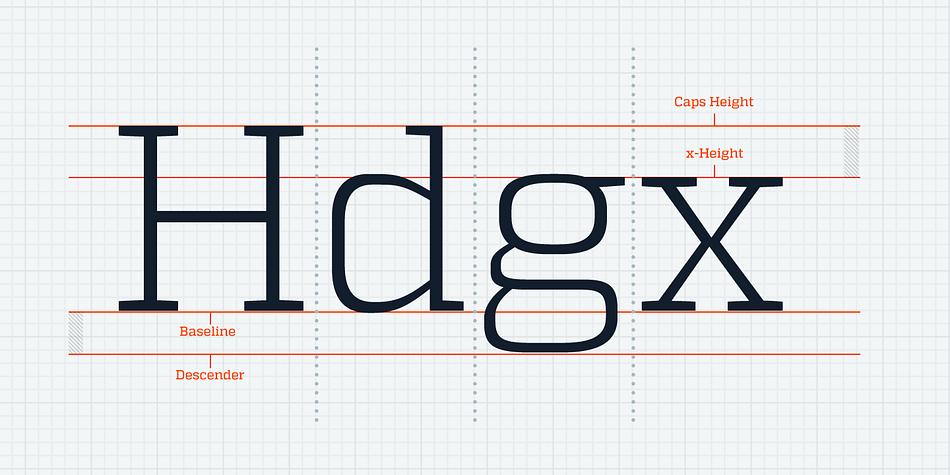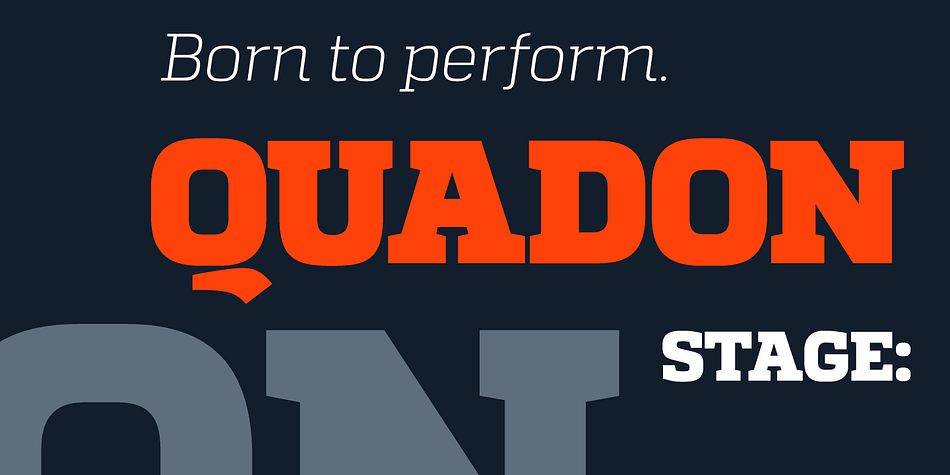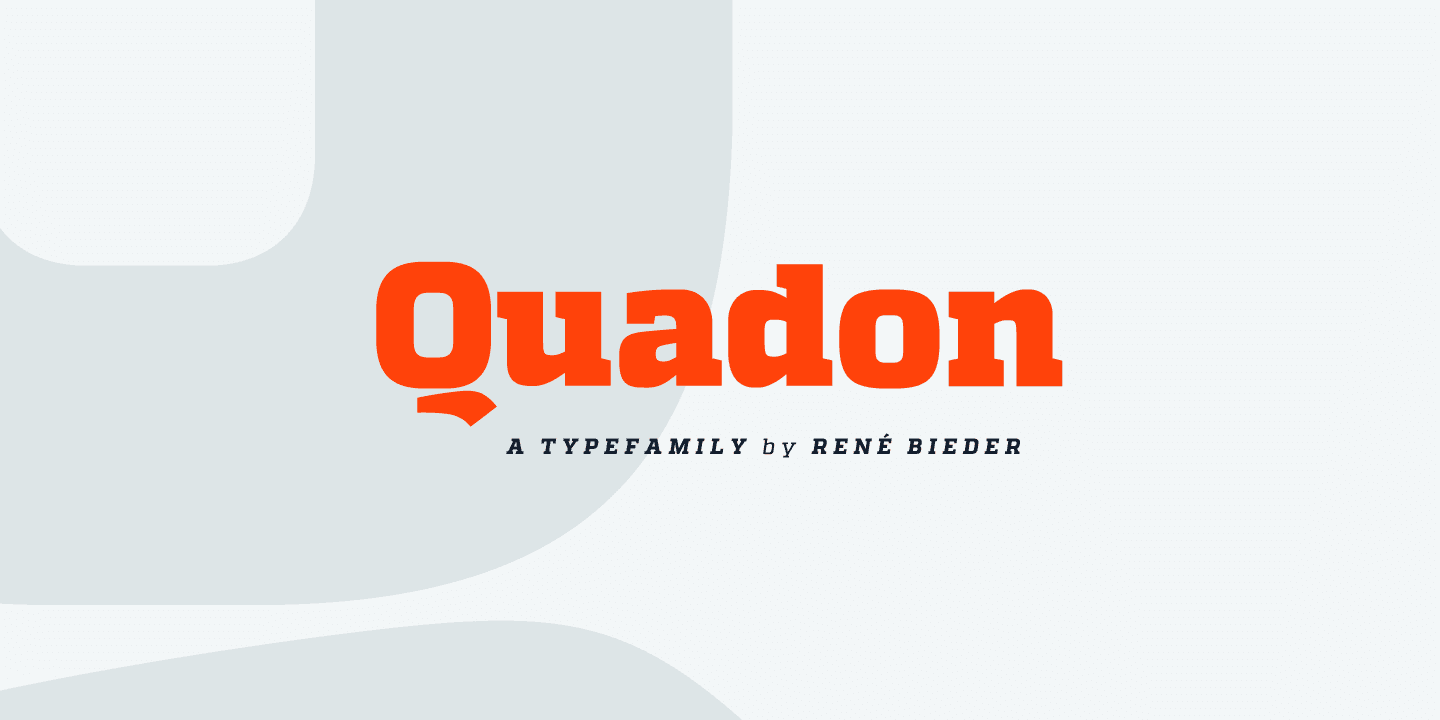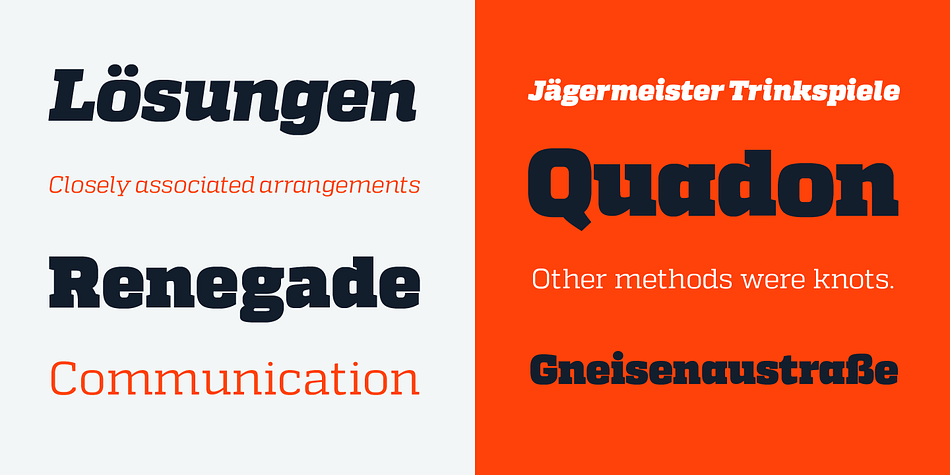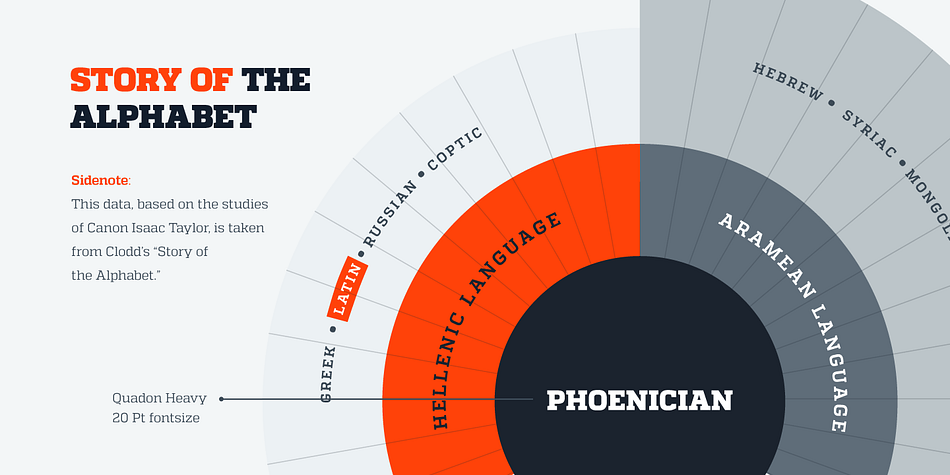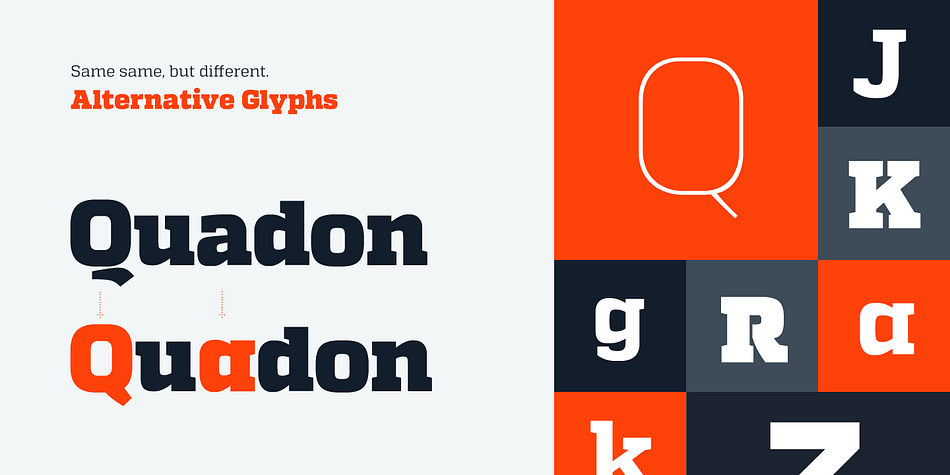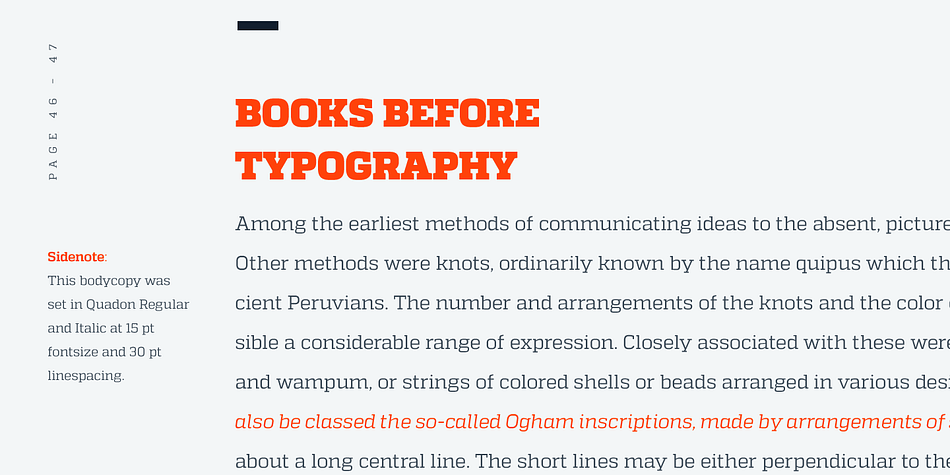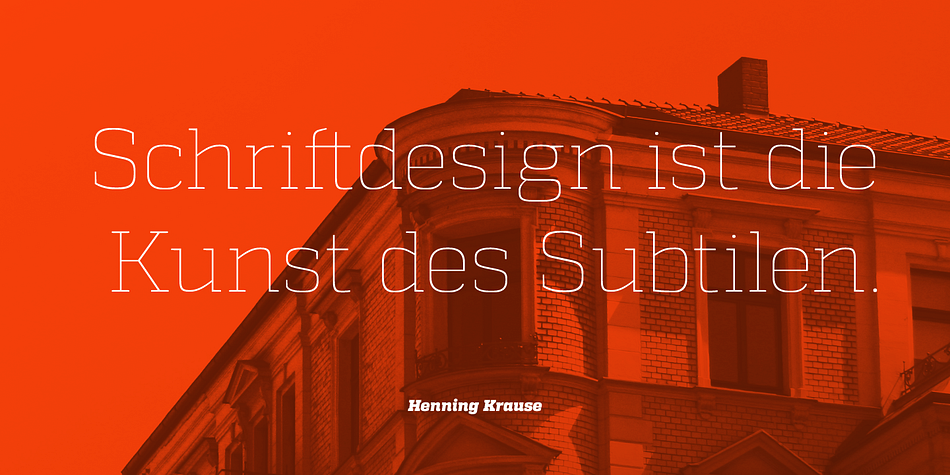
Quadon is a slab serif font family. This typeface has eighteen styles and was published by Rene Bieder.
Quadon was designed to fill the gap between traditional serifs and the lasting trend of using sans serif fonts for contemporary design. The result is a modern, clear and infinitely flexible interpretation of slab serif fonts. The open shapes and a large x-height keep the font legible in small sizes while the short descender supports the compact heart and strength of a slab serif. Quadon has a wide range of typographic features and alternative glyphs to create your own and unique version of it.
It comes in nine different weights with matching italics. From the sensitive but sharp thinner weights to the punchy and powerful heavy weights, Quadon is well-suited for a wide range of versatile tasks.